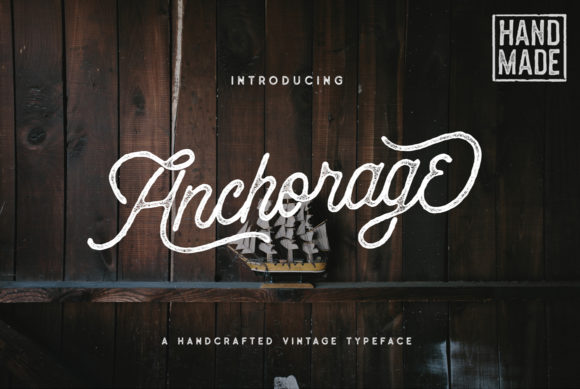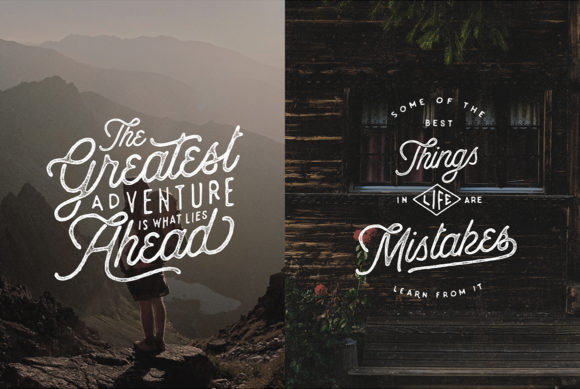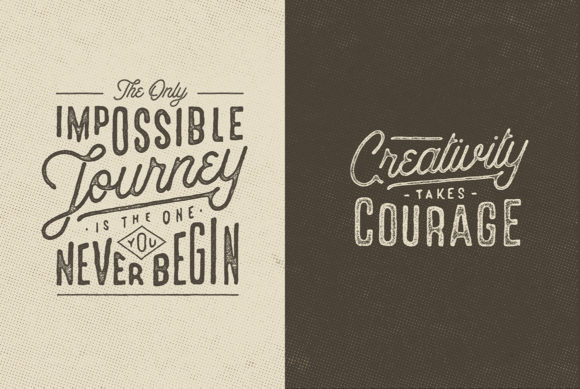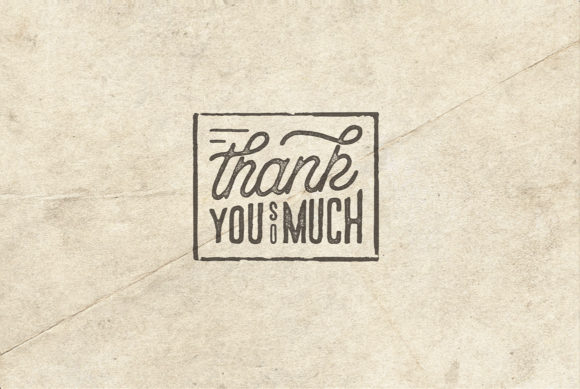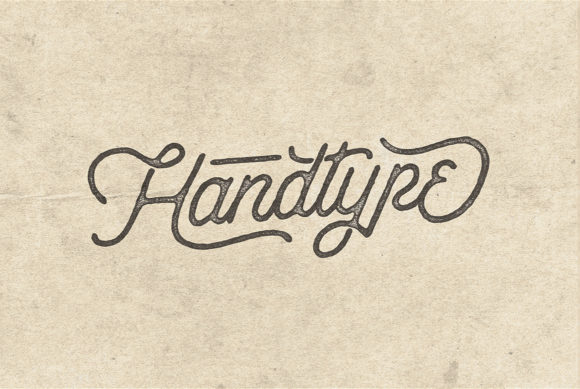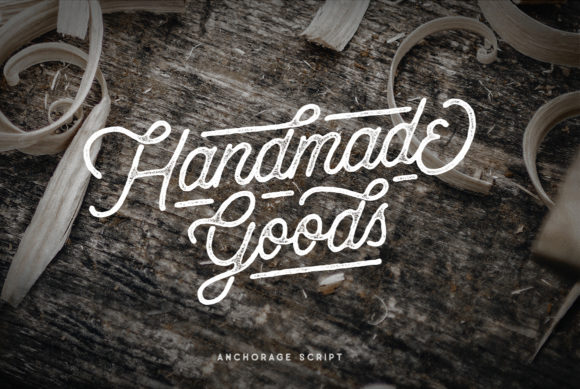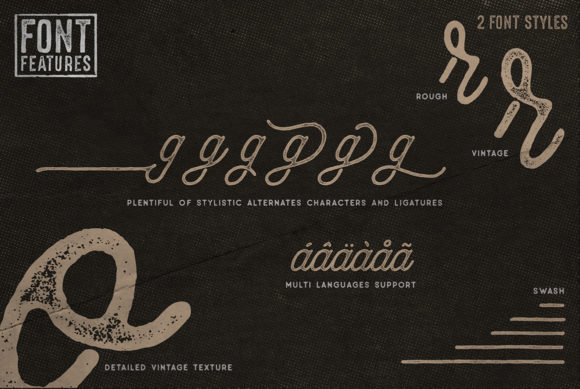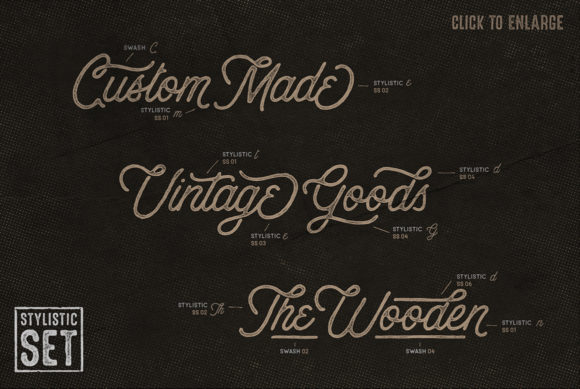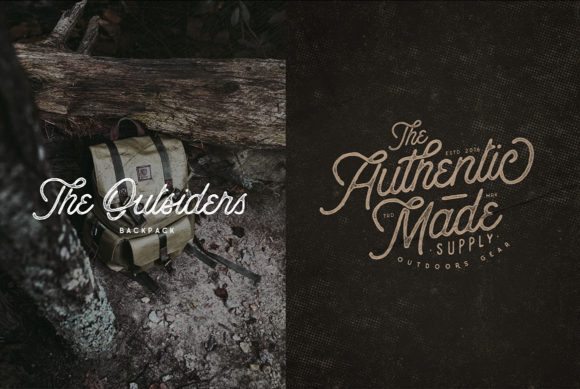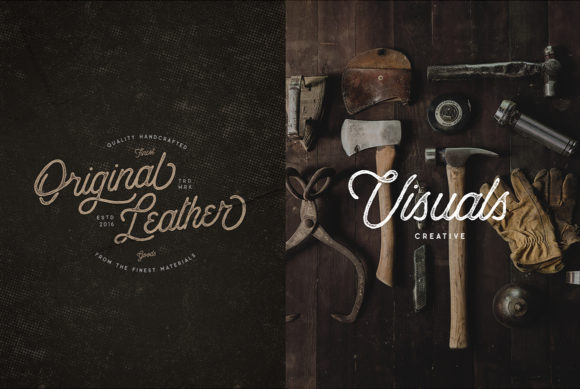
Anchorage Font
About Anchorage Font
Anchorage is a handcrafted vintage font. This amazing handwritten font has a vintage and classic feel. It comes in a rough and press styles, this versatility will appeal to a wide range of crafty ideas, from letterheads and titles, to stationery.